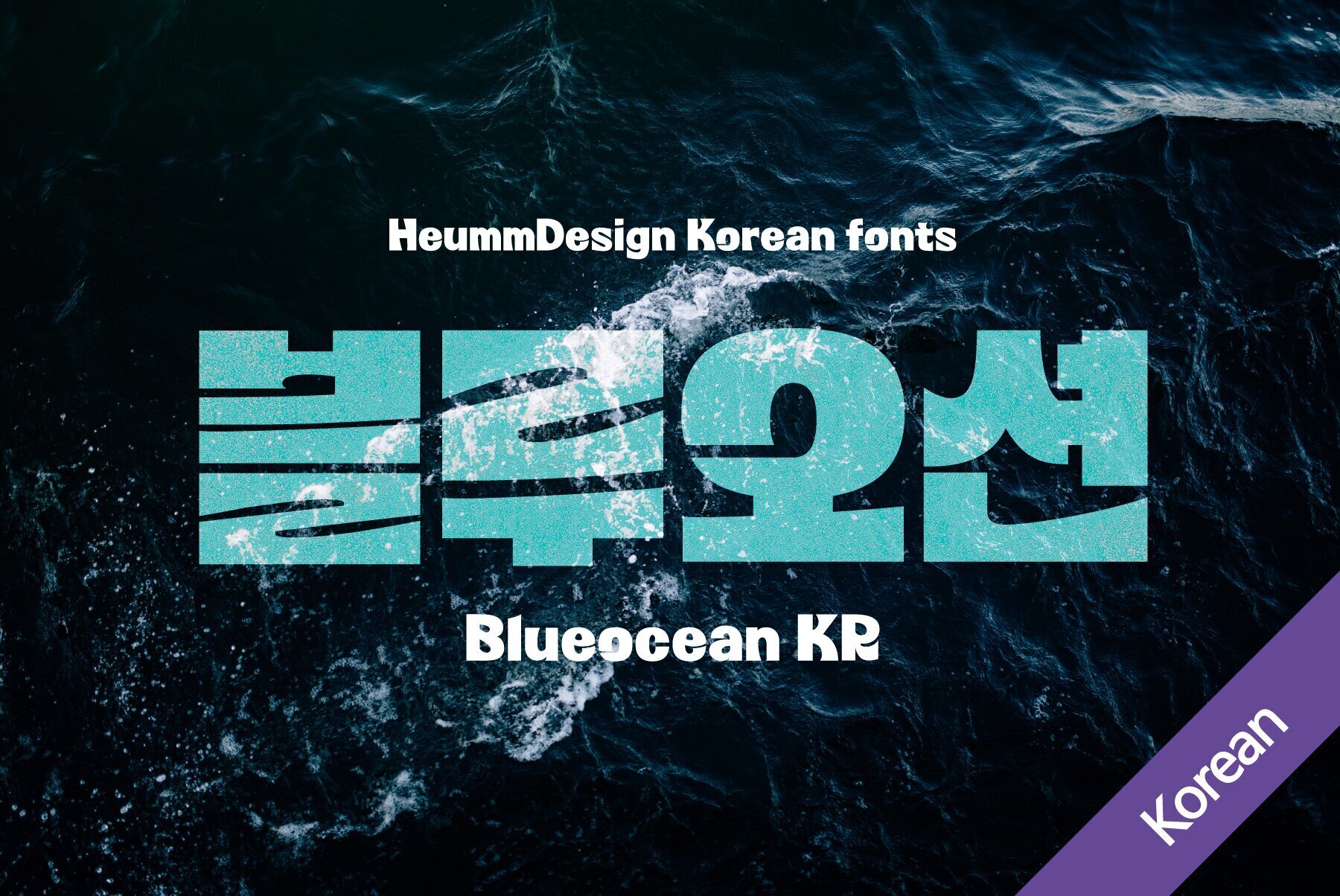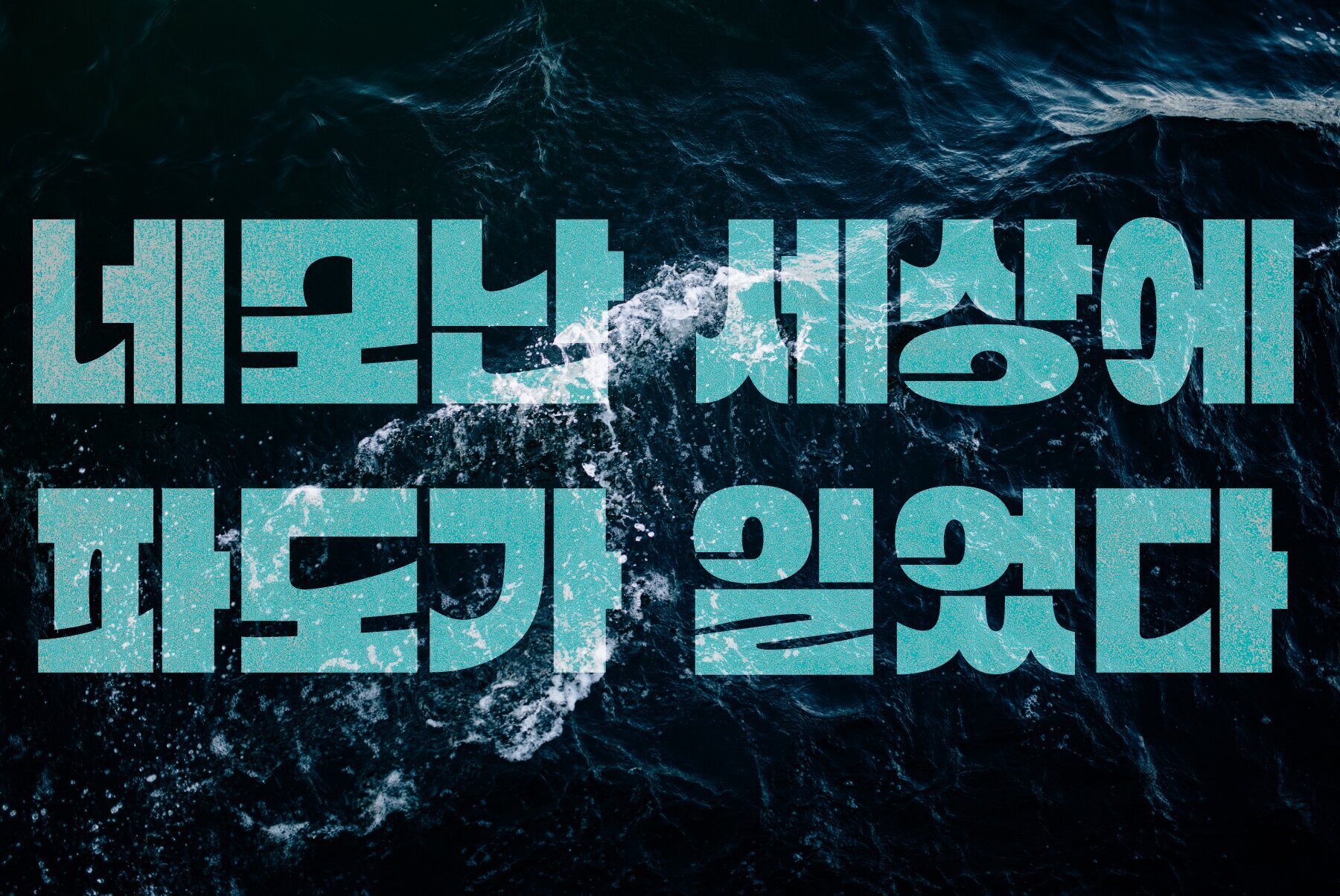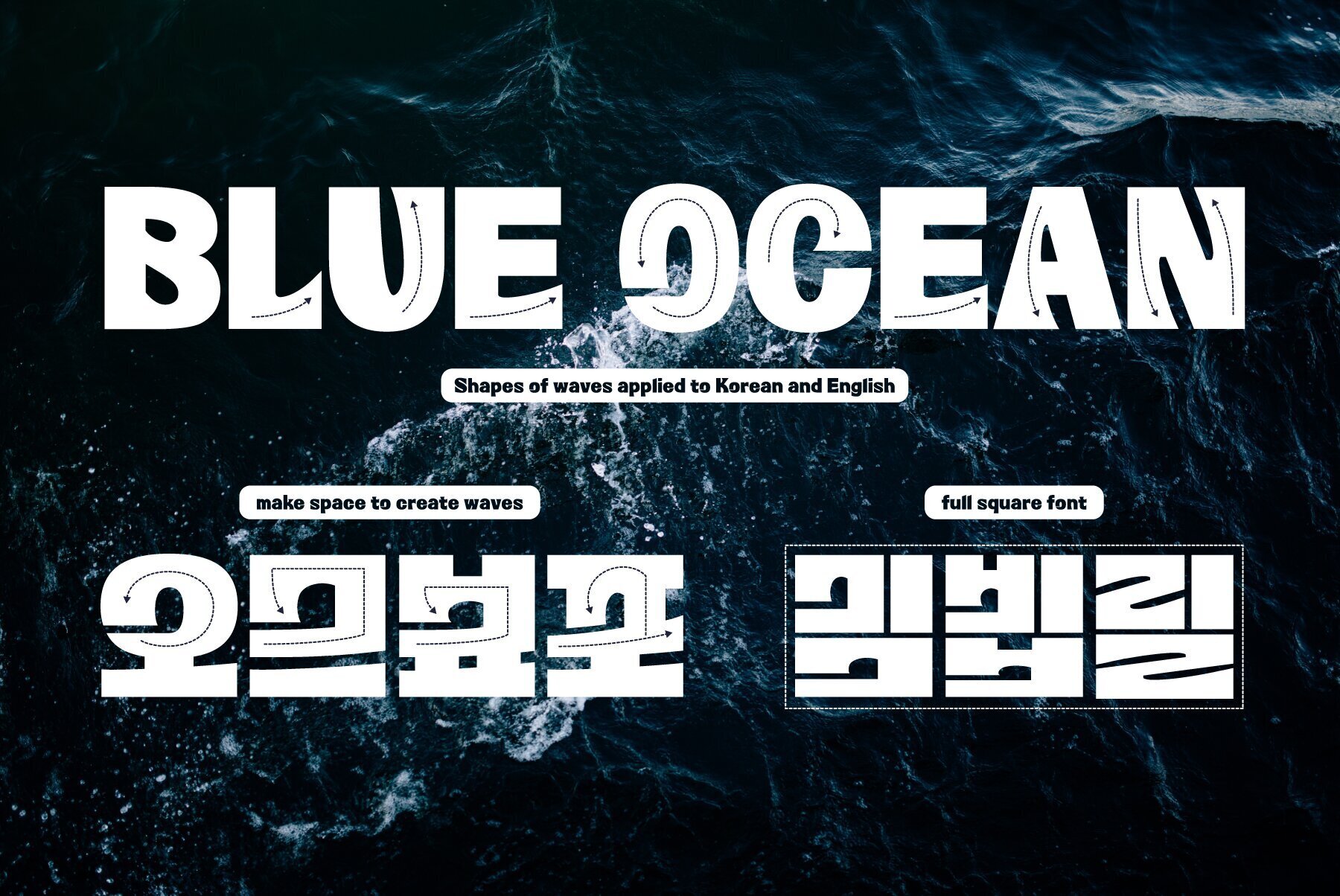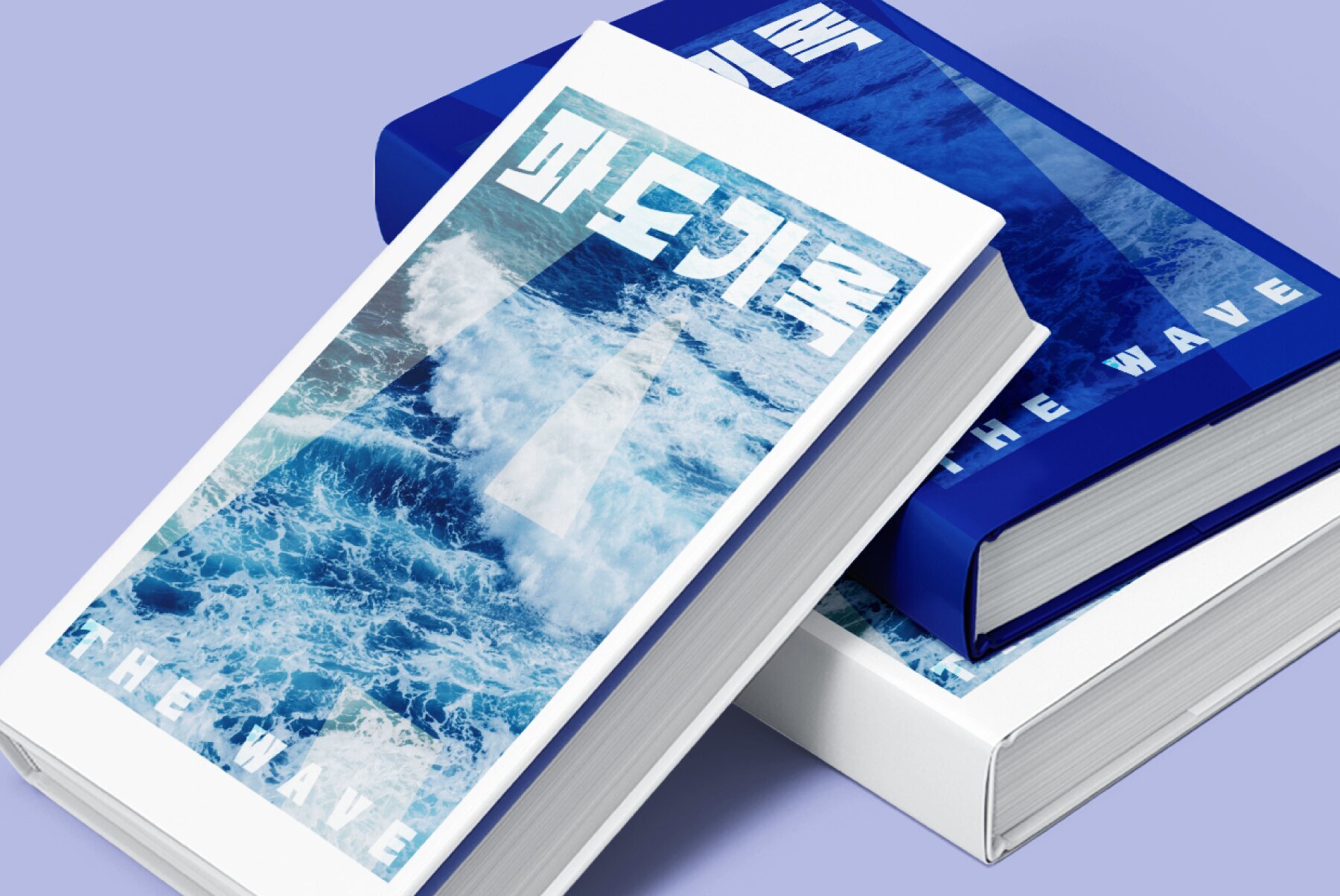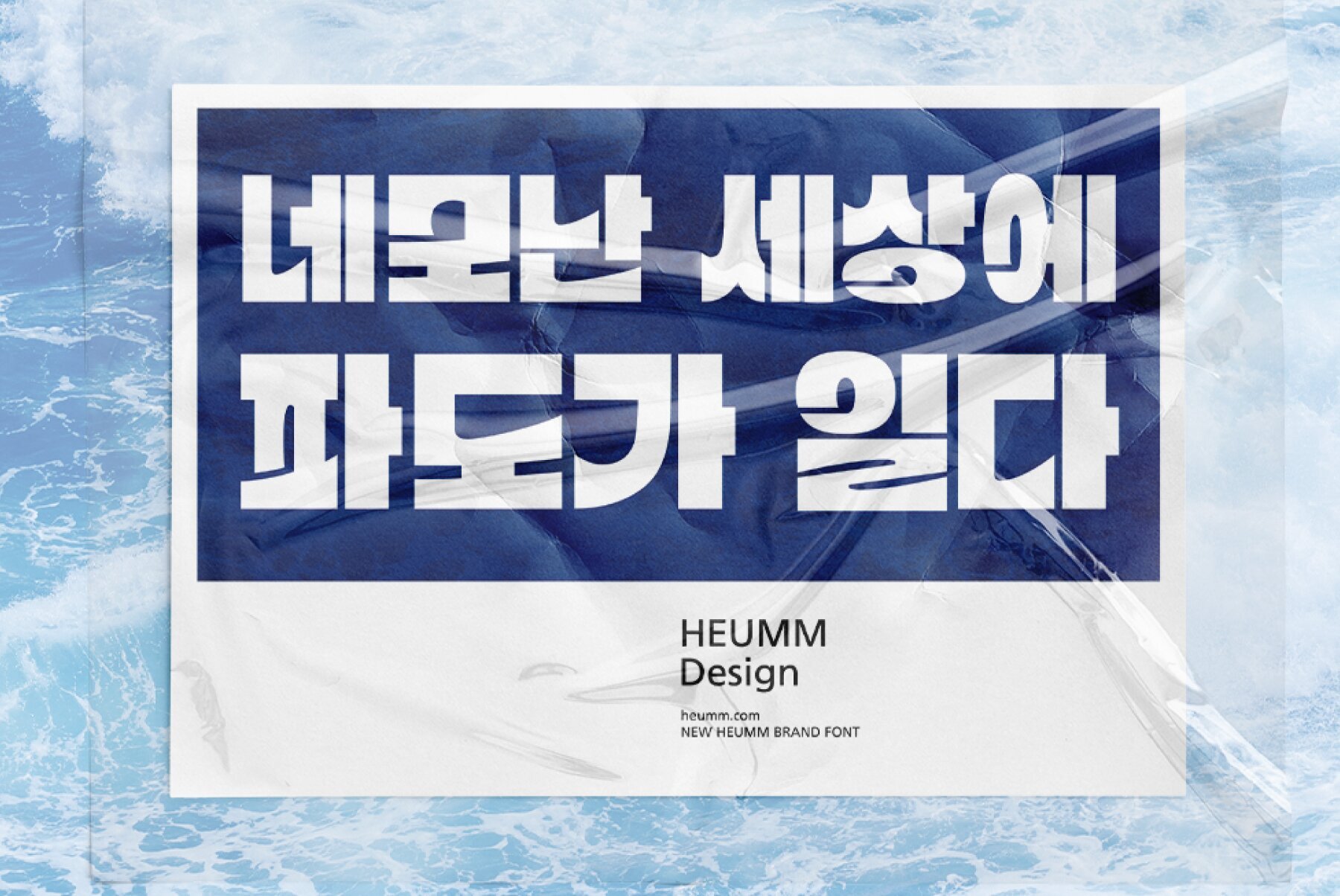
HU Blueocean KR Font
HUBlueoceanKR Extra Black
This is a headline typeface created by imagining the appearance of waves in a square glass tube. It is a typeface that adds a wave shape to the gothic style in a full square module. HU Blueocean KR includes Korean.